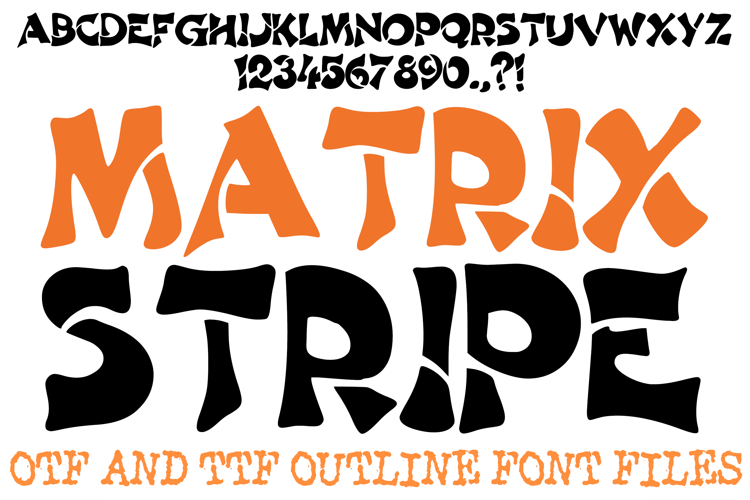
Matrix Stripe Alphabet Font Lettering ABC Sci-fi OTF TTF
The Matrix Stripe Font is a sleek, ultra-modern display typeface inspired by high-tech architecture, digital circuitry, and geometric puzzle matrices. Built from clean, interlocking block segments and intersecting linear paths, this font features distinctive internal negative space stripes that slice through each character. It is an exceptional choice for designers working on sci-fi gaming interfaces, electronic music album art, tech startup branding, and cyberpunk-inspired streetwear apparel.
The design masterfully utilizes a grid-based, mechanical structure where the characters fit together like an abstract, mathematical layout. The stark contrast between the solid geometric bars and the sharp, parallel line incisions gives the entire alphabet a cutting-edge, data-driven rhythm. Whether you are creating a prominent header for a futuristic website or a bold logo for an AI and technology project, this typeface delivers a powerful, calculated aesthetic that commands attention.
Why Your Designs Will Stand Out
Interlocking Geometric Matrix: The highly structured, mechanical arrangement of the blocks creates a puzzle-like visual rhythm across words and phrases.
Futuristic Linear Stripes: Clean, parallel negative-space cuts run through the character bodies, providing a distinct tech-inspired texture and motion.
High-Contrast Digital Silhouette: Robust, angular block shapes ensure massive display impact, remaining sharp and legible even against complex background graphics.
Sci-Fi and Cyberpunk Vibe: Perfectly tailored for forward-looking themes—from virtual reality and coding aesthetics to electronic music festival branding.